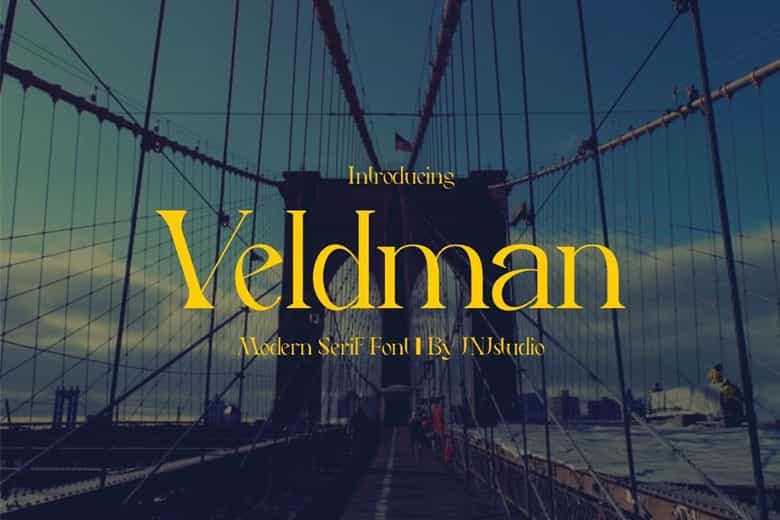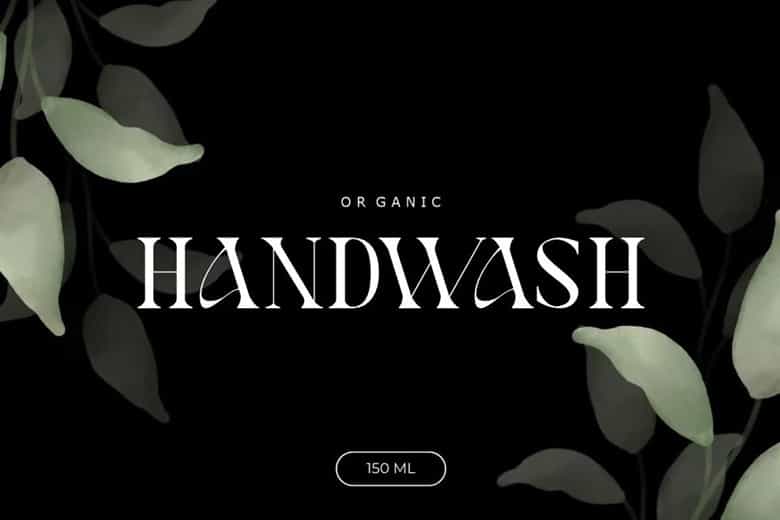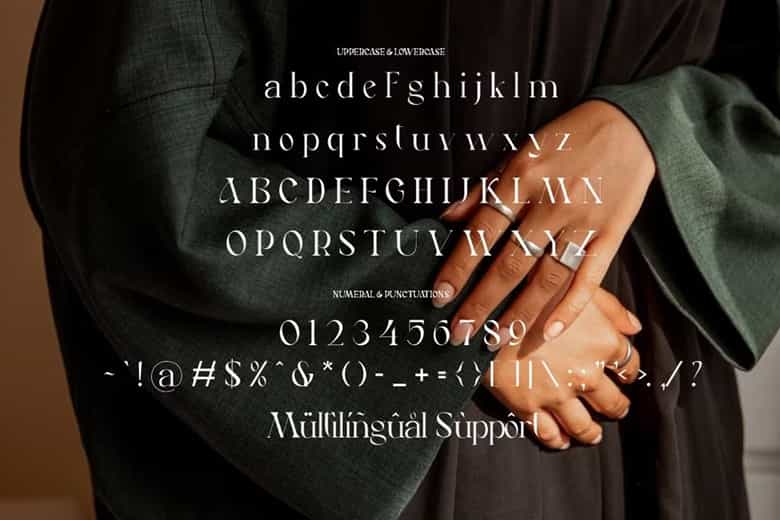
Veldman is a modern display serif typeface with a bold, beautiful appearance of the letters. It has clean lines of the serif type combined with a bit of modern touch, this font is suitable for any headline, poster, or brand logo that needs that classy and bold look.